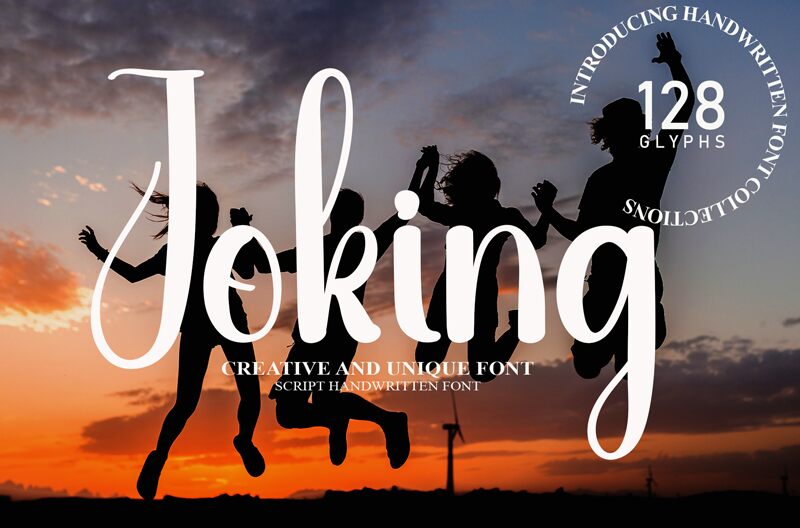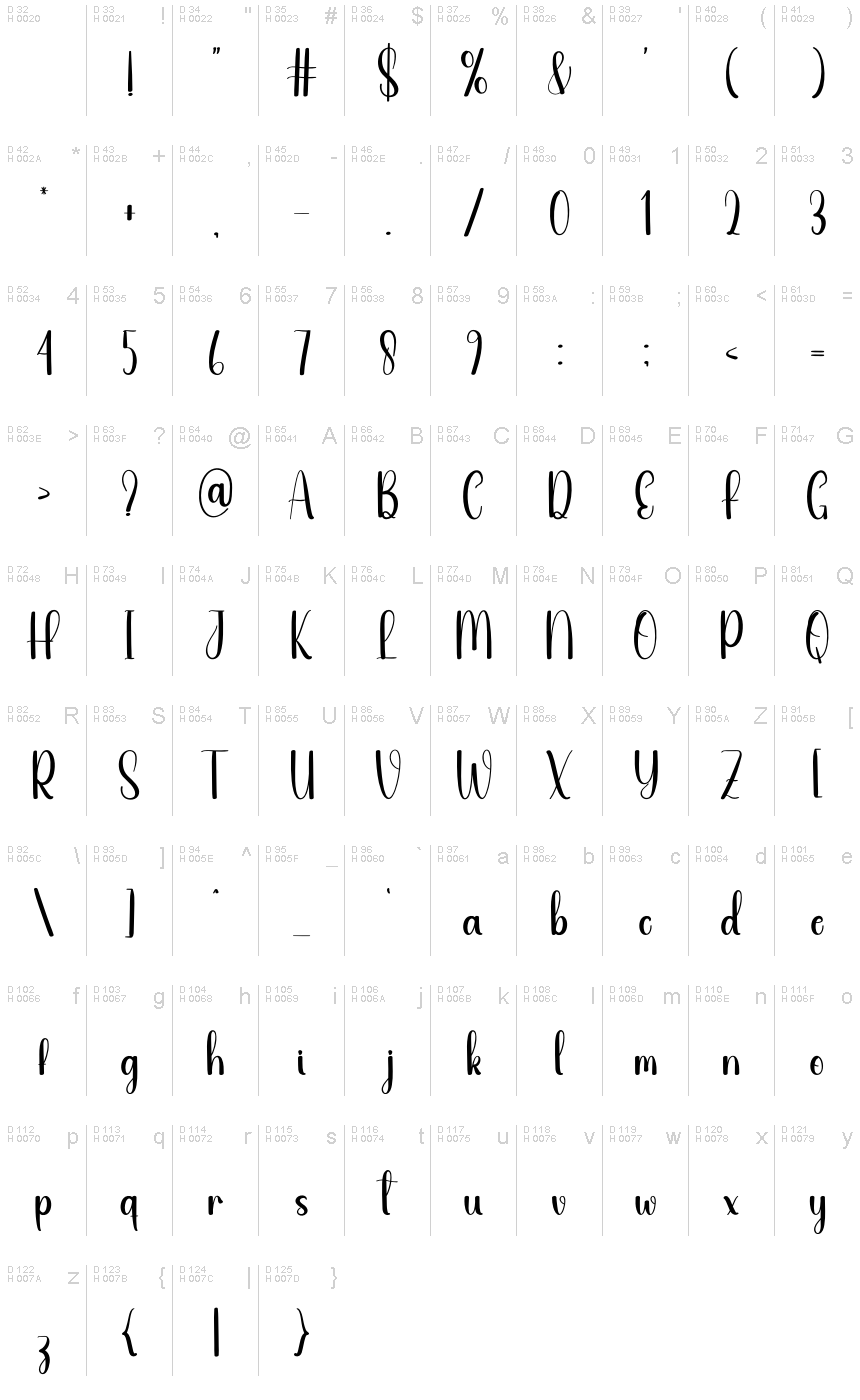
Joking
Joking, a whimsical creation by designer Andi Moz, is a captivating handwritten font that exudes a playful and friendly charm. With its flowing, condensed strokes, this typeface effortlessly captures a sense of warmth and approachability, making it a delightful choice for various design projects.
The font's distinctive style blends organic curves with a subtle touch of quirkiness, lending a charming and inviting aesthetic to any composition. Joking's versatility allows it to seamlessly transition between formal and informal settings, making it a versatile option for crafting personalized wedding invitations, heartfelt greeting cards, or adding a playful accent to packaging and branding designs.